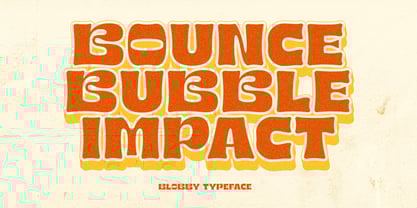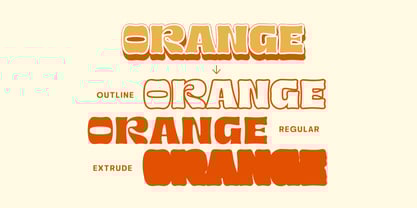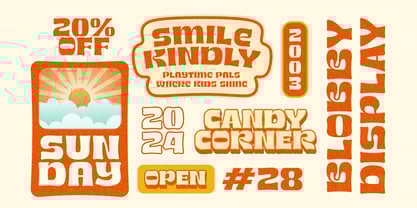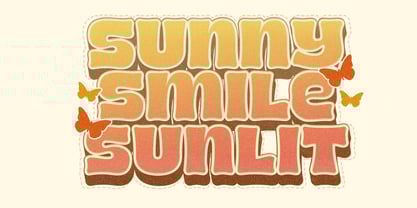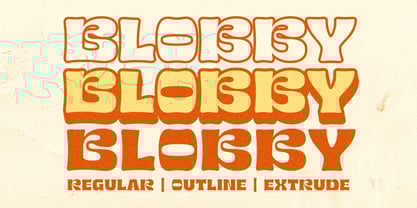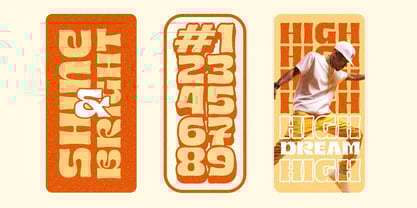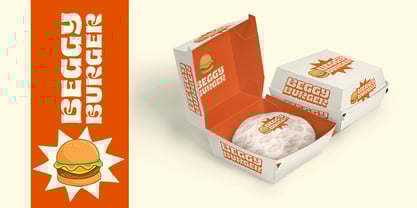
Blobby
by Typeskets
The Blobby Font Family was designed by Sahrul Hidayat and published by Typeskets. Blobby contains 3 styles and family package options. More about this family
Blobby - Retro Display Font
Step into the groovy vibes of the past with Blobby, a playful retro display font designed to bring boldness and fun to your projects. With its smooth, wavy lines and bubbly character, Blobby is perfect for designs that need a nostalgic, eye-catching flair.
Blobby comes in three versatile styles—Regular, Outline, and Extrude—making it ideal for layering and creating dynamic effects. Use it for posters, logos, packaging, apparel, social media graphics, and more. Whether you’re aiming for a funky 70s vibe or a fresh modern twist, Blobby has you covered.
Blobby’s unique personality shines through its chunky, rounded shapes and cheerful aesthetic, making it a standout choice for projects that demand a bold and lively touch. Its retro-inspired design is perfect for evoking a sense of nostalgia while still feeling fresh and modern. Whether you’re crafting vintage-themed posters, playful branding, or standout headlines, Blobby brings a dynamic and versatile energy that effortlessly adapts to your creative vision.
Designers: Sahrul Hidayat
Foundry: Typeskets